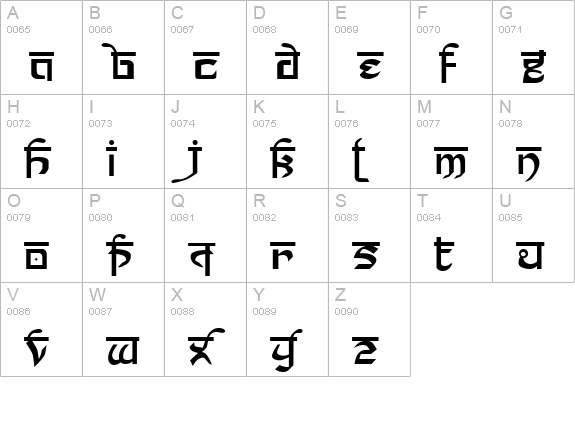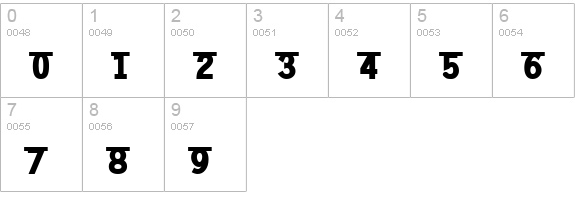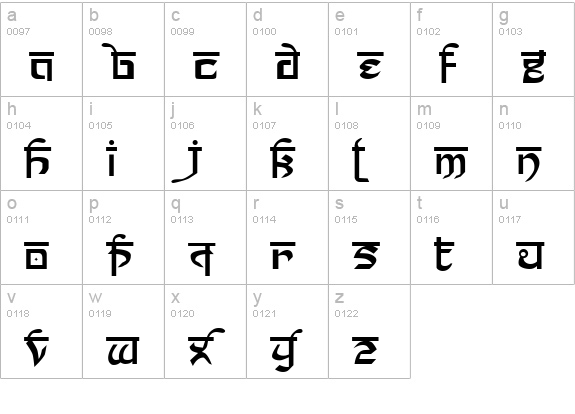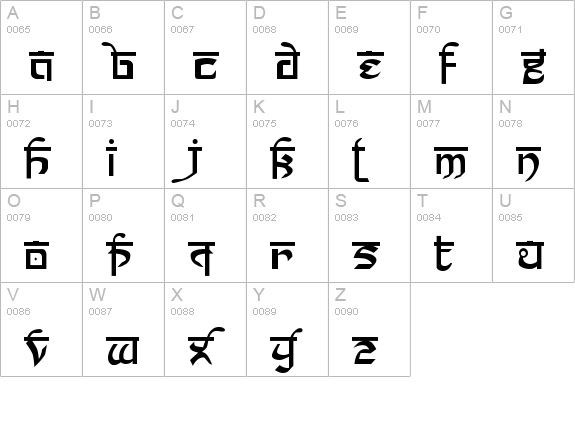
Prakrta Font Details
Prakrta font is a stunning typeface that exudes elegance and sophistication. With its clean lines and modern aesthetic, Prakrta is perfect for a wide range of design projects, from branding to editorial design. The font features a unique blend of traditional and contemporary elements, making it versatile and eye-catching. What sets Prakrta font apart is that it is available for free download at FontsMarket.com. This means that you can easily access this beautiful typeface and use it in your projects without any cost. Whether you're a designer, a student, or just someone who appreciates good typography, Prakrta font is a must-have in your font collection. Download Prakrta font today and add a touch of elegance and style to your designs. Let this exquisite typeface elevate your work and leave a lasting impression on your audience.